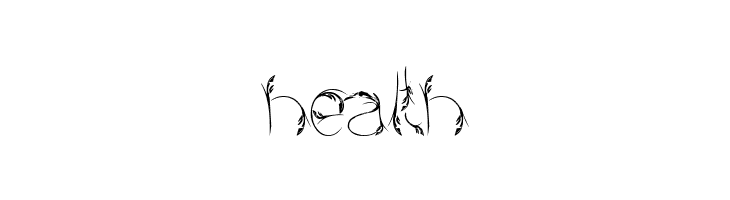
AdamantBG Font
A modern serif font with clean lines and versatile applications.
AdamantBG-Bold Font
A bold serif font with strong strokes and sharp serifs, ideal for impactful designs.
AdamantBG-BoldItalic Font
A bold and italic font with a dynamic slant and elegant curves.
AdamantBG-Italic Font
An elegant serif font with an italic slant, offering a classic and sophisticated look.
AGA Kyrawan V.2 BJ1H'F Font
A modern, geometric font with an art deco influence and clean lines.
aqualib Font
A playful, organic font with rounded, fluid characters and varying stroke thickness.
Bird Feather Font
An artistic font with characters designed to resemble bird feathers.
bookmark Font
A rounded, geometric sans-serif font with a clean, modern look.
Contribute_FREE-version Font
An elegant, flowing script font with intricate loops and swirls.
LovelyAudreyBG Font
An elegant script font with flowing, cursive letterforms and decorative elements.
LovelyGraceBG Font
An elegant, flowing script font with a sophisticated, handwritten style.
LovelySofiaBG Font
An elegant, flowing script font with smooth cursive strokes.
Micro Fleurons Free Font
Intricate ornamental designs with floral and mythical motifs.
Muddy Tractor Font
A bold, textured font with a rugged, organic appearance.
Muddy Tractor Bold Font
A bold, textured font with a rugged, distressed style.
NeoplantaBG Font
A classic serif font with elegant strokes and pronounced serifs.
NeoplantaBG-Bold Font
A bold, classic serif font with high contrast and pronounced serifs.
NeoplantaBG-BoldItalic Font
A bold and italicized font with classic elegance and smooth curves.
NeoplantaBG-Italic Font